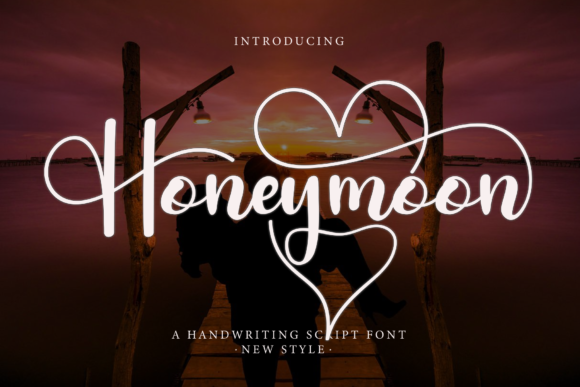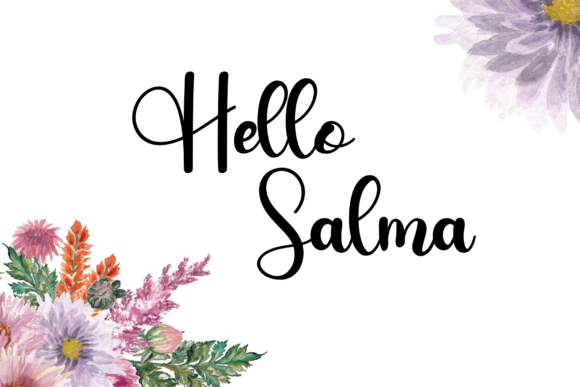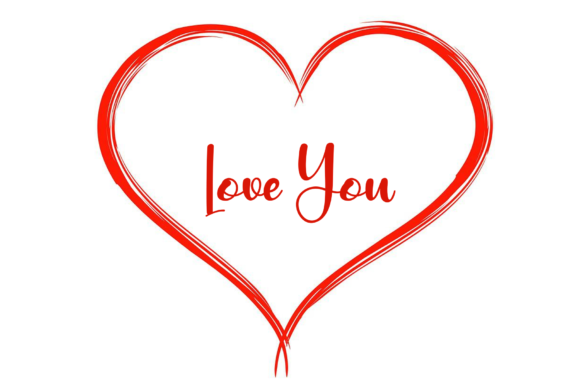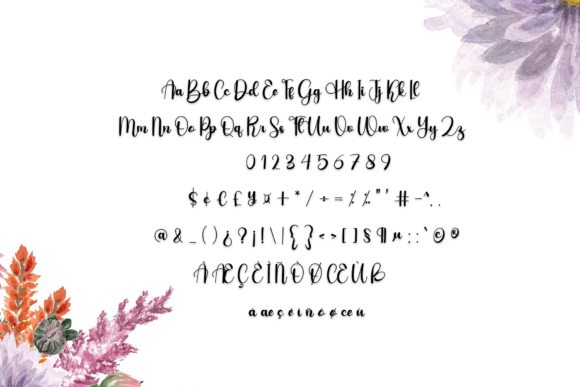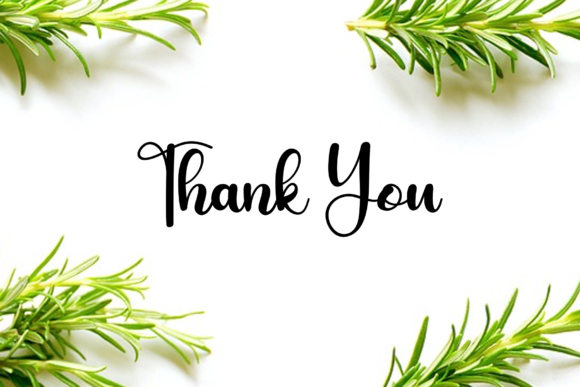
Honeymoon Font
About Honeymoon Font
Honeymoon is a distinctive, round lettered handwritten font that has been meticulously crafted to achieve its unique results. This font serves as a versatile choice for writing titles, invitations, letters, and a variety of other creative products.
At its core, Honeymoon stands out with its round and handcrafted letterforms, adding a touch of individuality to your text. The careful design ensures that each character contributes to the overall aesthetic, resulting in a font that is both visually appealing and charming.
The versatility of Honeymoon makes it suitable for a range of applications. Whether you’re working on eye-catching titles, elegant invitations, or heartfelt letters, this font lends itself well to diverse projects. Its rounded and handwritten style adds a personal and approachable touch to the text, making it engaging and friendly.
Honeymoon’s unique design sets it apart, allowing it to bring a distinctive flair to your creative endeavors. Its rounded lettering adds a sense of warmth and character, making it a delightful choice for projects where a touch of uniqueness is desired.
In summary, Honeymoon is more than just a font; it’s a carefully crafted tool that brings a unique, round lettered handwritten style to your projects. Its versatility makes it suitable for titles, invitations, letters, and various other types of creative products, ensuring that your text carries a distinct and charming personality. Incorporate Honeymoon into your designs to add that extra touch of individuality and creativity.